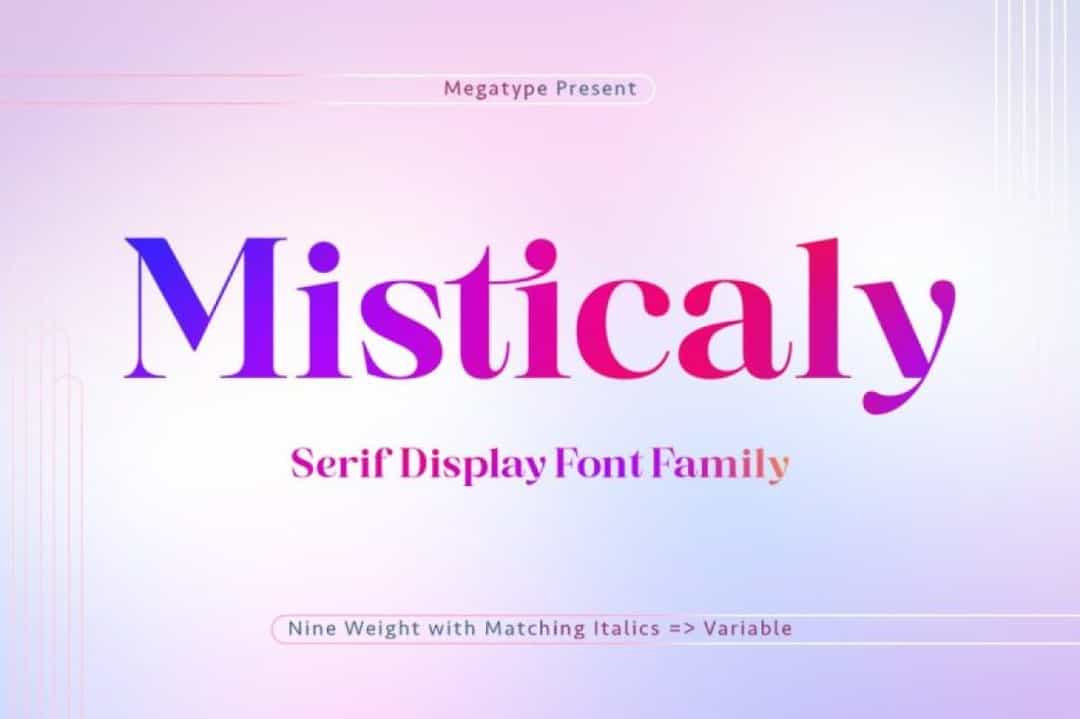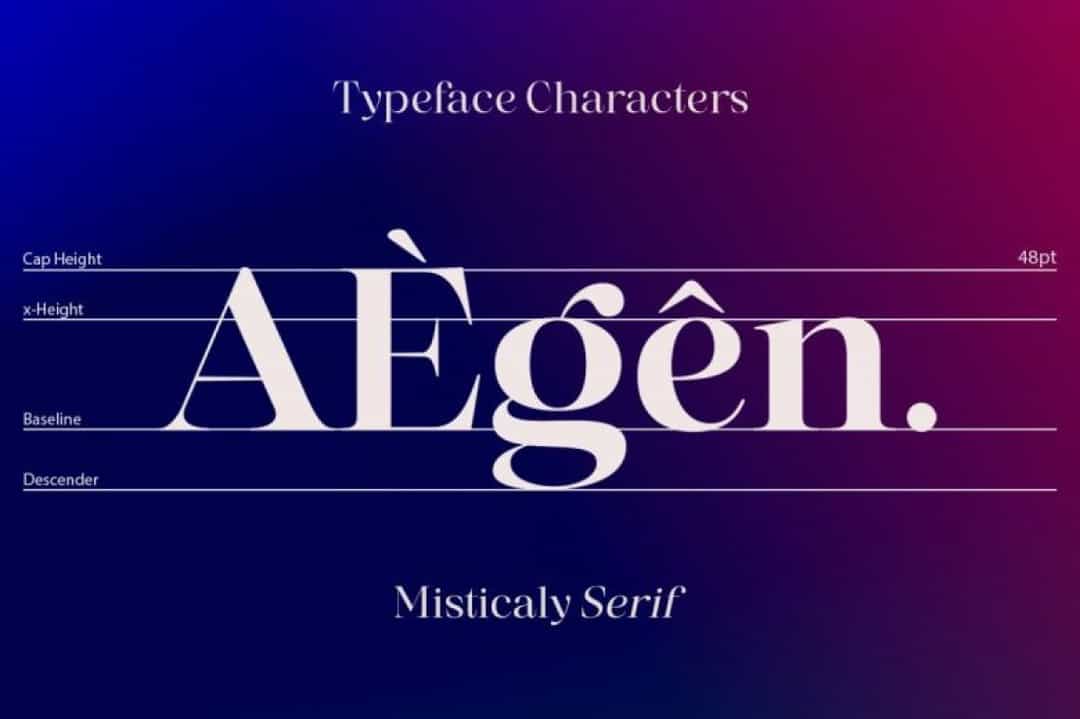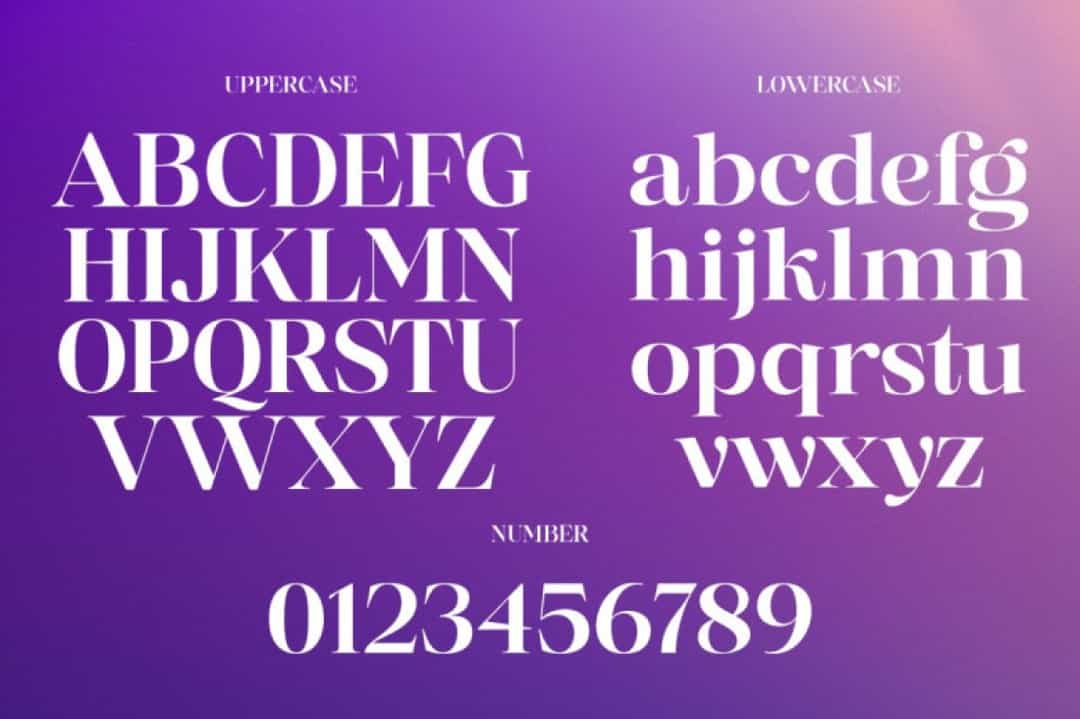
Misticaly is a stylish, cozy Serif Display Font that has an old-fashioned feel. Great looking at large size and is it is easy to read even at the size of text. This includes one Variable version and 18 Font. Regular and italic. From thin to Black. The OpenType feature supports typographic applications like ligatures, as well as multiple languages.